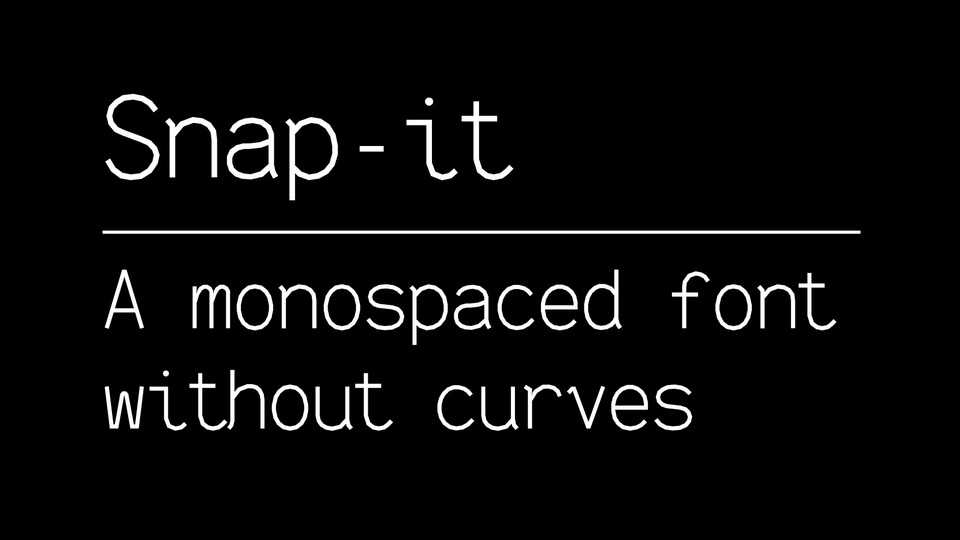
Download Snap-it Mono font, a monospaced typeface without curves. Snap-it Mono is serious and fun at the same time, the no curve design helping the serious and brutalist look, broken terminals for the fun part.
Designer: Morgane Bartoli